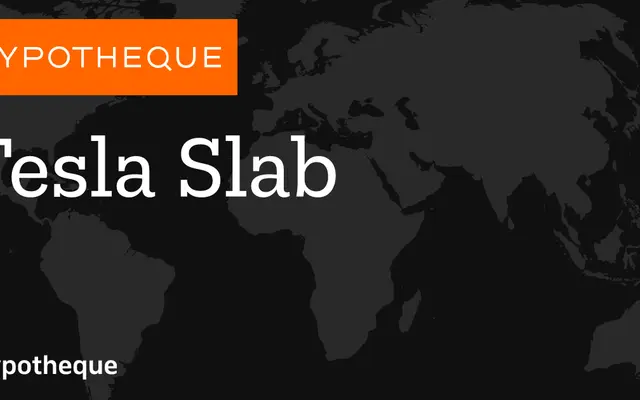
Tesla Slab
A structured slab serif family from Typotheque, offered as part of a broader system that includes mono, stencil, caps and variable subfamilies across seven weights.
Tesla Slab spans seven weights from Hairline to Bold, each with a matching italic, and belongs to a wider Tesla type system encompassing Tesla Mono, Tesla Caps, Tesla Stencil and a variable font. The consistent geometric construction across subfamilies makes the system well suited to editorial and UI environments where typographic unity across different text roles is required. Named styles follow a city-based naming convention for individual purchases.
Tesla Slab is a slab serif family with consistent stroke weight and geometric slab serifs, positioned within a broader system that includes mono, stencil and caps variants. The even, structured forms align it with contemporary geometric slab traditions.